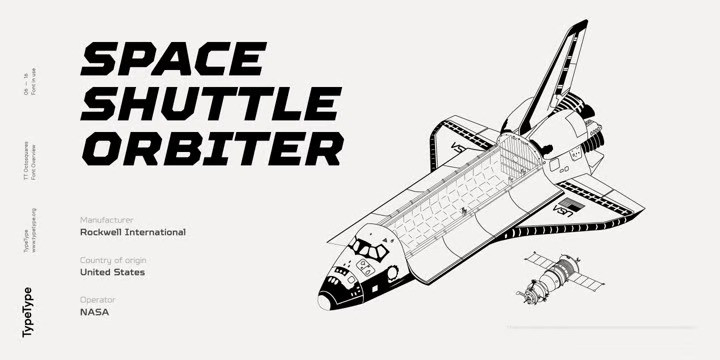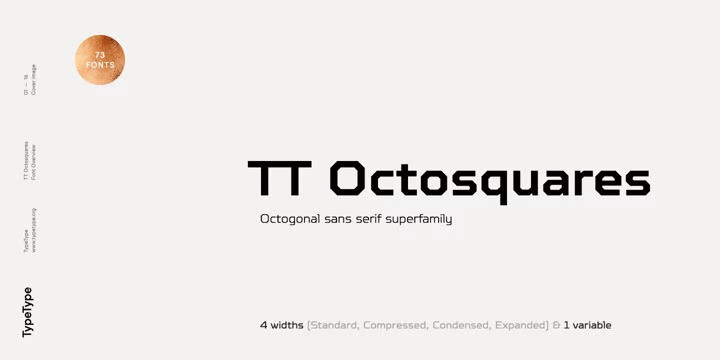
TT Octosquares Font
TT Octosquares Sans Serif Font is a fresh, revised, expanded, and significantly improved version of our first commercial typeface TT Squares and its narrow version TT Squares Condensed. With all our love for the original font family, it felt there was a lack of functionality, character composition, features, and design freshness, which prompted us to the idea of a complete restart. Now TT Octosquares can be safely called a superfamily consisting of 4 widths (Compressed, Condensed, Standard, Expanded), 72 faces (18 in each width), and 1 incredible variable font in which variability works jointly on three axes.
In addition to working on the contours themselves and their design, we completely revised the composition of the typeface. First, we added two completely new widths: Compressed and Expanded. Secondly, we increased the number of weights in each of the subfamilies—while in the old versions there were 5 weights, now in each of the subfamilies there are 9 weights. At the stage of working with the contours of characters, we revised the roundings, changed the forms of shoulder and stem crossings, added noticeable shelves at the letters, removed the sharpness from the triangular characters and cut off all sharp endings.
From the very beginning of work on TT Octosquares, we planned to make a variable 3-axis version of it sewn into 1 font file. This means that by installing just one variable font file, you get access to three axial adjustment of the font: by thickness, width and inclination. Thanks to this flexibility in settings, you can always choose a custom combination of thickness, width or inclination that best suits your tasks.